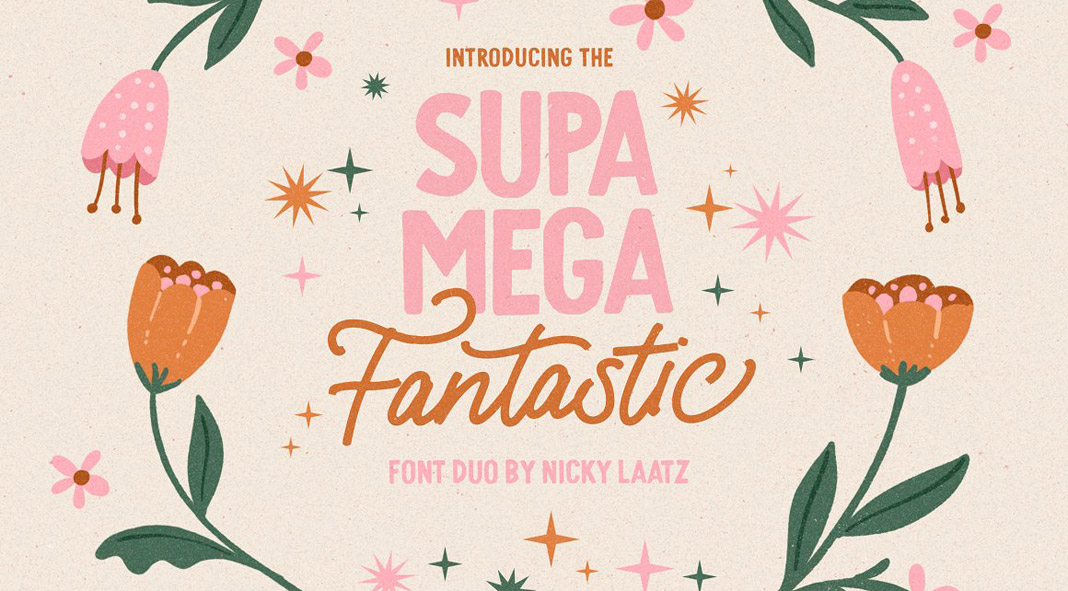
Let’s take a closer look at Supa Mega Fantastic, a lovely hand-lettered font duo that works pretty well with quirky illustrations and graphics.
Created in 2021 by Nicky Laatz, the Supa Mega Fantastic font duo! consists of a playful monoline script and a chunky all caps sans serif font. Both styles are characterized by an authentic hand-lettered sign-painter style.
The script font is equipped with plenty of OpenType alternate characters. Furthermore, the script comes in two variants: regular and a slightly thinner version. The slightly thinner version is great for light typography on darker backgrounds while the thicker version is best for darker titles on lighter backgrounds.
With its hand-drawn style, the Supa Mega Fantastic font duo works great with illustrations and graphics. You can use these fonts for a wide range of work such as branding, greeting cards, quotes, packaging design, posters, invitations, social media, and so much more! The Supa Mega Fantastic font duo supports multiple languages including Danish, English, Finnish, French, German, Swiss-German, Norwegian Bokmål, Norwegian Nynorsk, Spanish, and Swedish. Just click on one of the following links to learn more about the Supa Mega Fantastic font duo by Nicky Laatz.